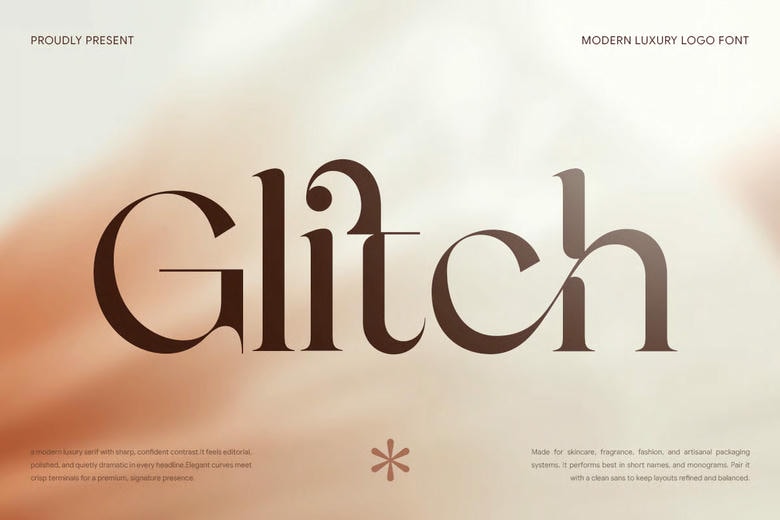
Glitch Font
Glitch is a contemporary luxury logo typeface that aims at providing sleekness, readability and high quality premium brand. Glitch has smooth typography, balanced ratios, and trendy contemporary elements that make it ideal on luxury logos, fashion branding, beauty brands, editorials, packaging, and upper-end visual undertakings.
Mixed with the aesthetics of modern minimalism and elegant luxury, Glitch develops the elegant and professional look of the print and online designs. Its unique nature is suitable among boutique brands, jewelry brands, lifestyle items, fashion houses and designers who want to have a contemporary luxury font that promotes the prestige of the brand.
Glitch Logo Font